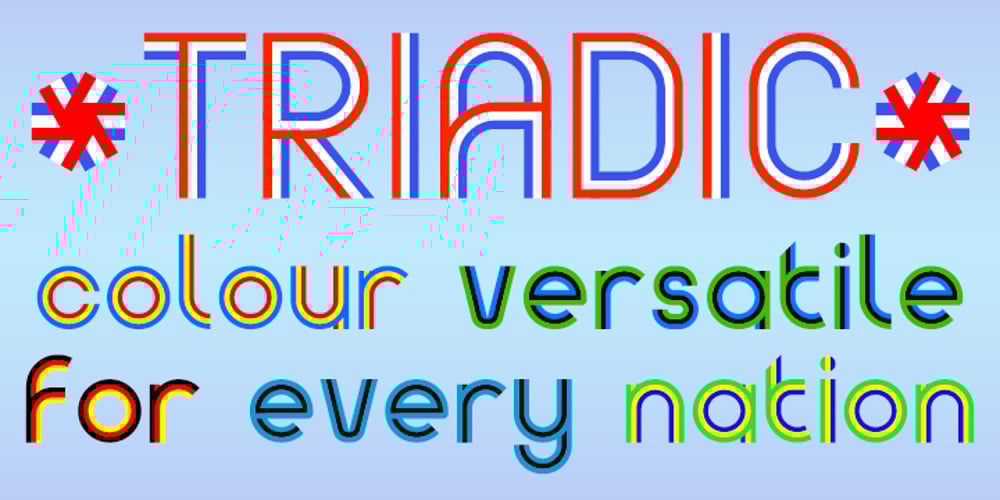
Triadic Font Family was designed by Tanya Davis and published by Scrowleyfonts. Triadic contains 3 styles and family package options. Created in response to a nation preparing for the 2012 games, Triadic is ideal for titling and short text with a patriotic flavour. The font is made up of three separate files designed to be overlaid in different colours. The addition of a stroke to letters allows for four colours to be used. Triadic is only available as a family of 3 fonts – Triadic A, B & C.